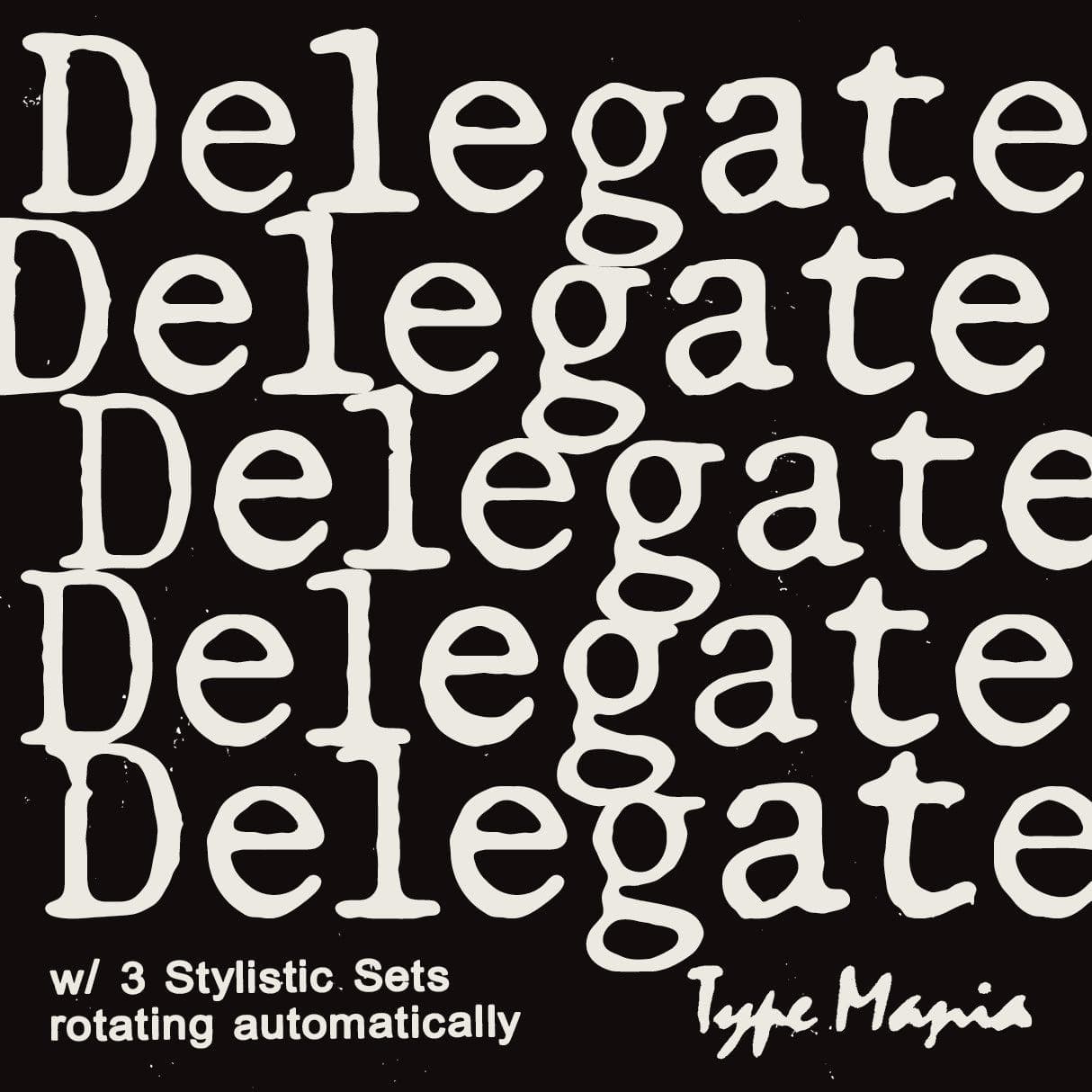
<p>Whether you're crafting a flyer for a house party or designing a brand identity; whenever you need a cozy, distressed typeface that delivers organic vibes damn near automatic – there's <strong>Delegate TM</strong>.</p> <p><strong>Zip includes</strong></p> <ul> <li>OTF file</li> <li>TTF file</li> <li>WOFF2 file</li> </ul> <p><strong>OpenType features</strong></p> <ul> <li>3 stylistic sets</li> <li>The font is programmed to automatically shift between the stylistic sets</li> </ul> <p><strong>Languages</strong></p> <ul> <li>Basic Latin</li> <li>Western European</li> <li>Euro</li> <li>Central European</li> <li>Pan African Latin</li> </ul> <p><em>Graphic Design is Easy (with Type Mania)®</em></p>